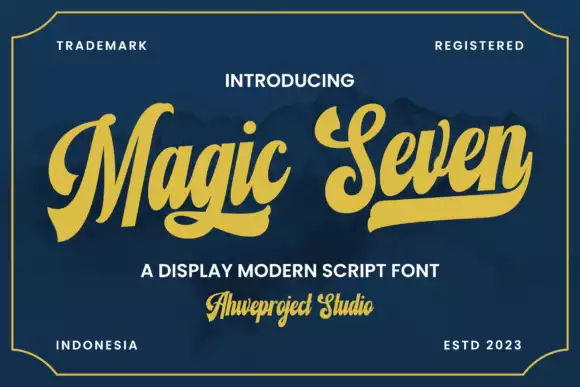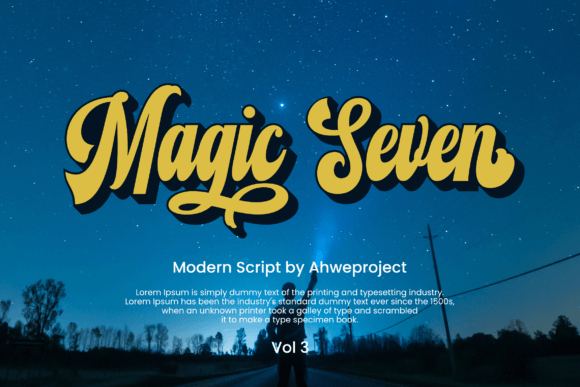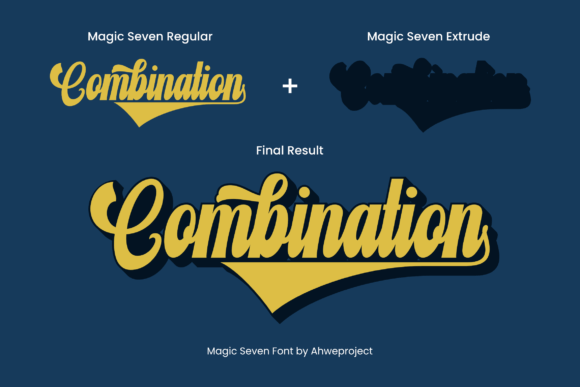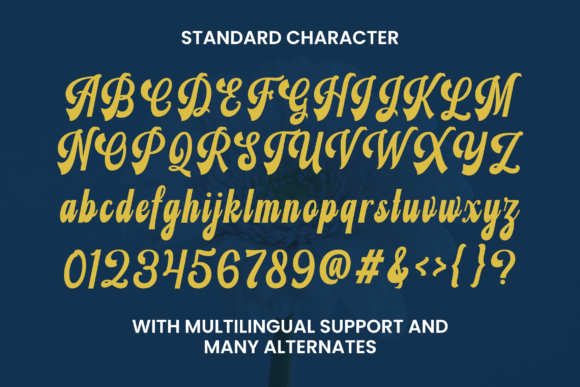
Magic Seven Font
Magic Seven is a stunning display script font that seamlessly blends classic and modern design elements to create a unique and stylish typeface. This font perfectly made to be applied especially in logo, and the other various formal forms such as invitations, labels, logos, magazines, books, greeting / wedding cards, packaging, fashion, make up, stationery, novels, labels or any type of advertising purpose.
Magic Seven Font is a Script And Handwritten font that brings a professional and versatile look to your projects. Magic Seven is a stunning display script font that seamlessly blends classic and modern design elements to create a unique and stylish typeface.